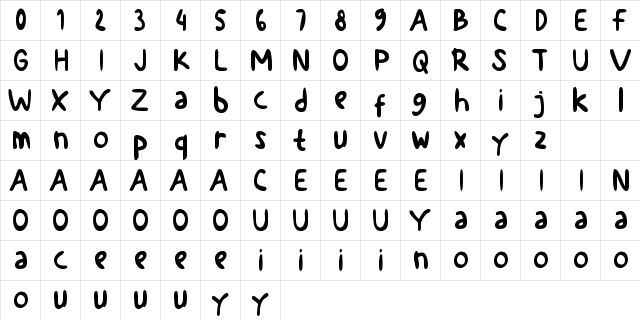
Nhaturlhy Regular
Design Context for Nhaturlhy Typeface
Nhaturlhy is a composed and adaptable typeface that performs quietly and consistently across a wide range of design contexts.
Pro Tip: Pair Nhaturlhy with a font of contrasting weight or personality to build a more expressive typographic hierarchy.